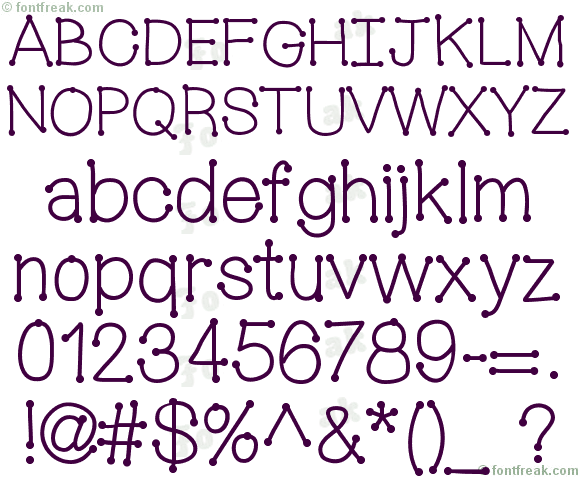
MixConnectDots
MixConnectDots by Mikko Sumulong is a unique display font characterized by its playful and modern aesthetic. This sans-serif typeface features rounded, curvilinear forms that create a friendly and approachable vibe. The stroke weight is consistent, offering a balanced appearance, while the slight contrast in thickness adds a touch of elegance without compromising legibility. The spacing between characters is well-calibrated, ensuring that the font maintains clarity even in larger blocks of text. The decorative elements, such as the dot-like accents on certain letters, enhance its whimsical quality, making it ideal for creative projects.
This versatile font shines in various contexts. It is particularly well-suited for children's book covers, playful branding, and engaging social media graphics. Additionally, MixConnectDots can elevate wedding invitations with its charming flair, making them feel both personal and festive. Its lighthearted nature also makes it a fantastic choice for restaurant menus that aim to create a welcoming atmosphere. Small business owners looking to establish a friendly brand identity will find this font a valuable asset for logos and marketing materials.